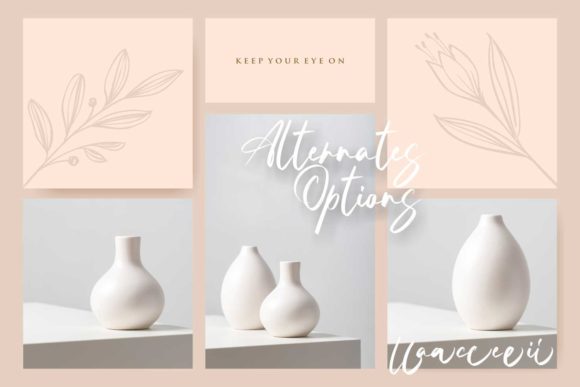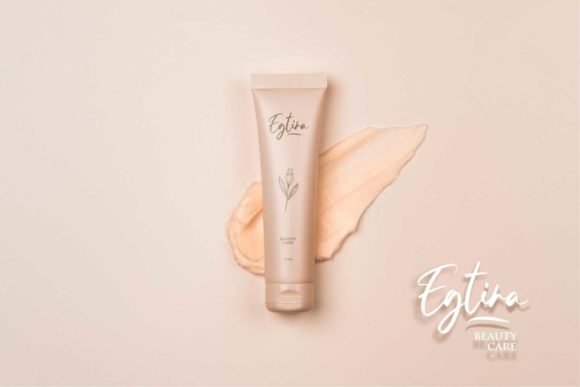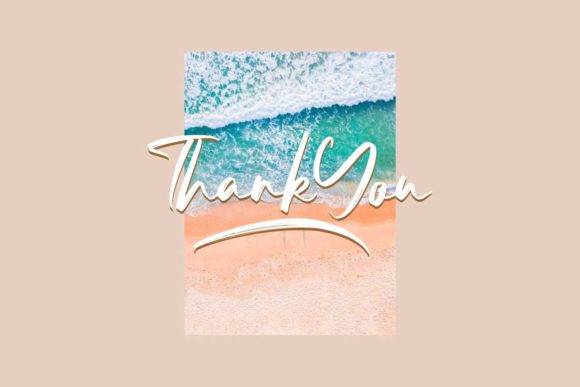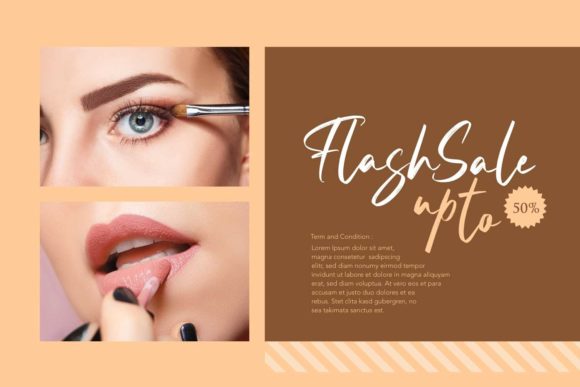
About Bresitton Font
“Bresitton” is a gracefully relaxed brushed script font that effortlessly exudes sleekness and elegance. With its carefully crafted design, this font embodies a sense of laid-back sophistication that seamlessly blends beauty and functionality. When you incorporate “Bresitton” into your graphic design projects, you’re adding a touch of understated charm that resonates with a wide range of audiences.
Whether you’re creating content for Social Media, working on product packaging, designing eye-catching posters, or crafting captivating banners, “Bresitton” is a versatile companion that adapts effortlessly to various contexts. Its fluid strokes and gentle curves lend a soothing and pleasing aesthetic to your designs, making it an excellent choice for projects where a balanced and relaxed vibe is key.
One of the standout features of “Bresitton” is its inclusion of swashes and ligatures. This means you have a wealth of creative options at your fingertips to enhance your design results. These additional elements allow you to add flourishes, embellishments, and unique connections between characters, giving your typography an extra layer of flair and originality.
When you choose “Bresitton,” you’re not just selecting a font – you’re opting for a versatile tool that empowers you to bring your creative visions to life with ease. Its versatility, combined with its sleek and gorgeous appearance, ensures that your projects will stand out and make a lasting impression. Whether your design goal is to captivate, inform, or engage, “Bresitton” is there to lend its unique and understated beauty to your every endeavor.